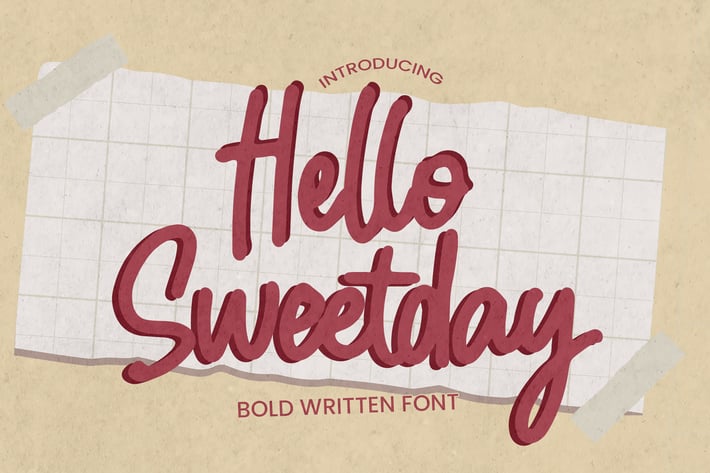
Hello Sweetday - Bold Written Font
Hello Sweetday - is a Playful Craft font with a natural handwritten feel. This handmade font will make your design has a beautiful natural touch for each details. It is perfect for any design project as Invitation,logo, book cover, craft or any design purposes.
Inspired by Food Logo style and combination with Cute Craft style. that will fulfill your design needs for quotes,sporty theme, logotype, wordmark, etc. This has many opentype features and support multi language.